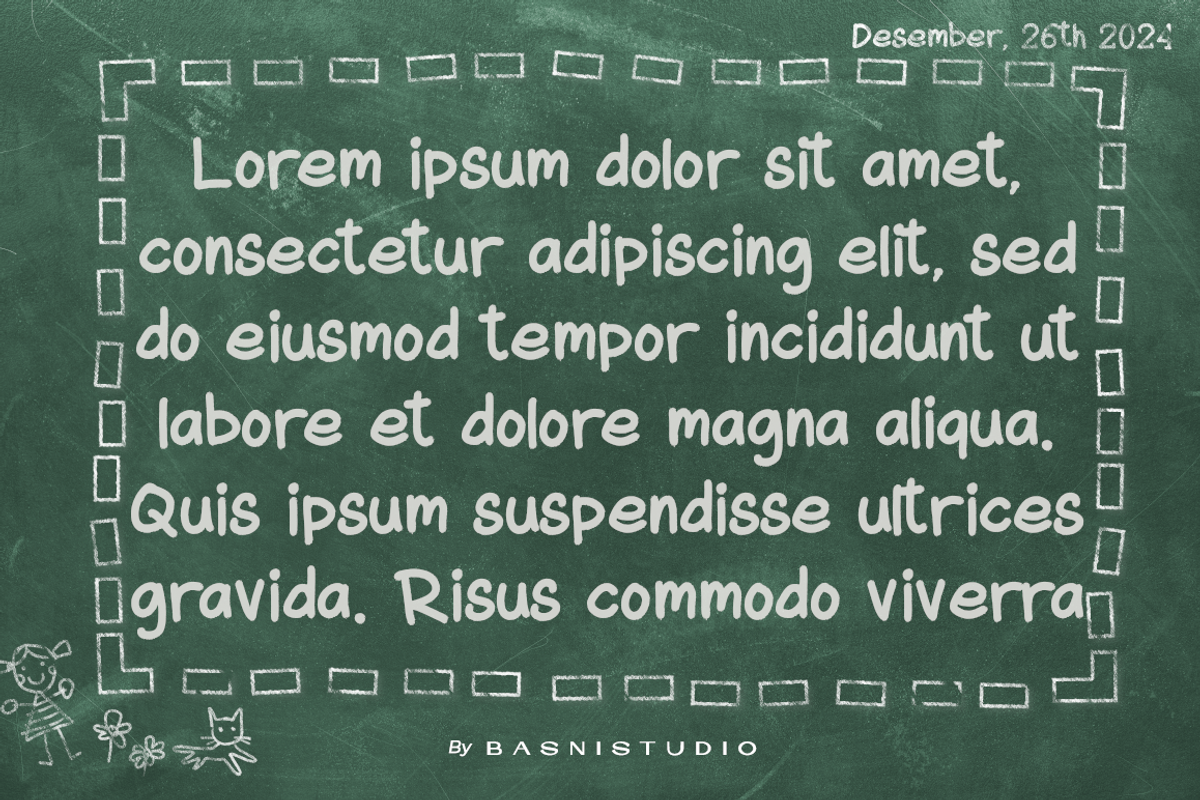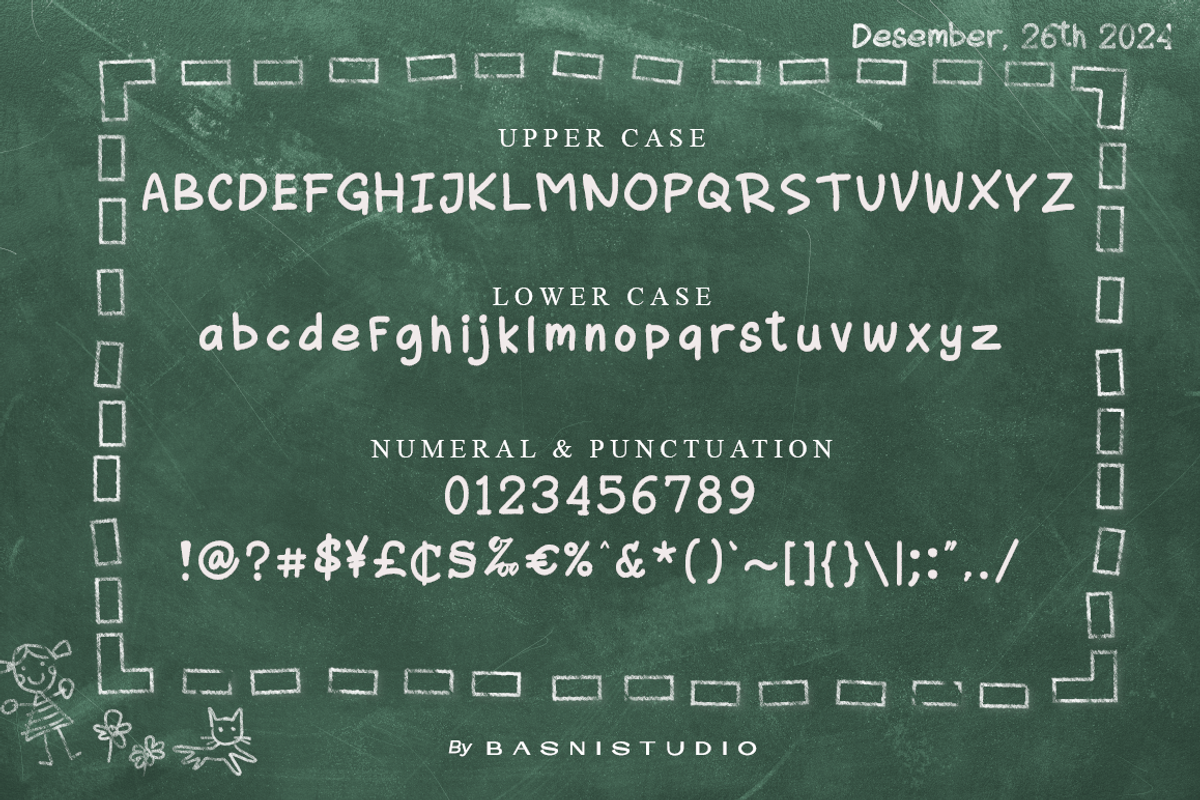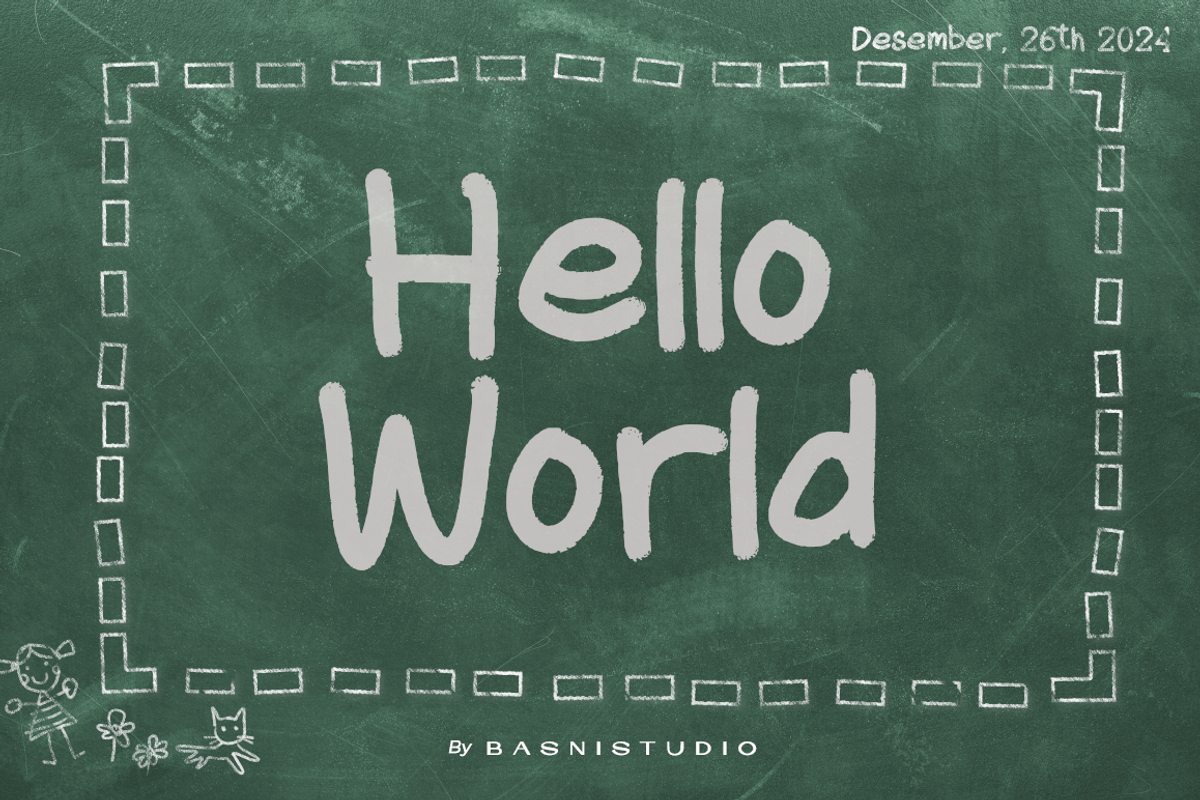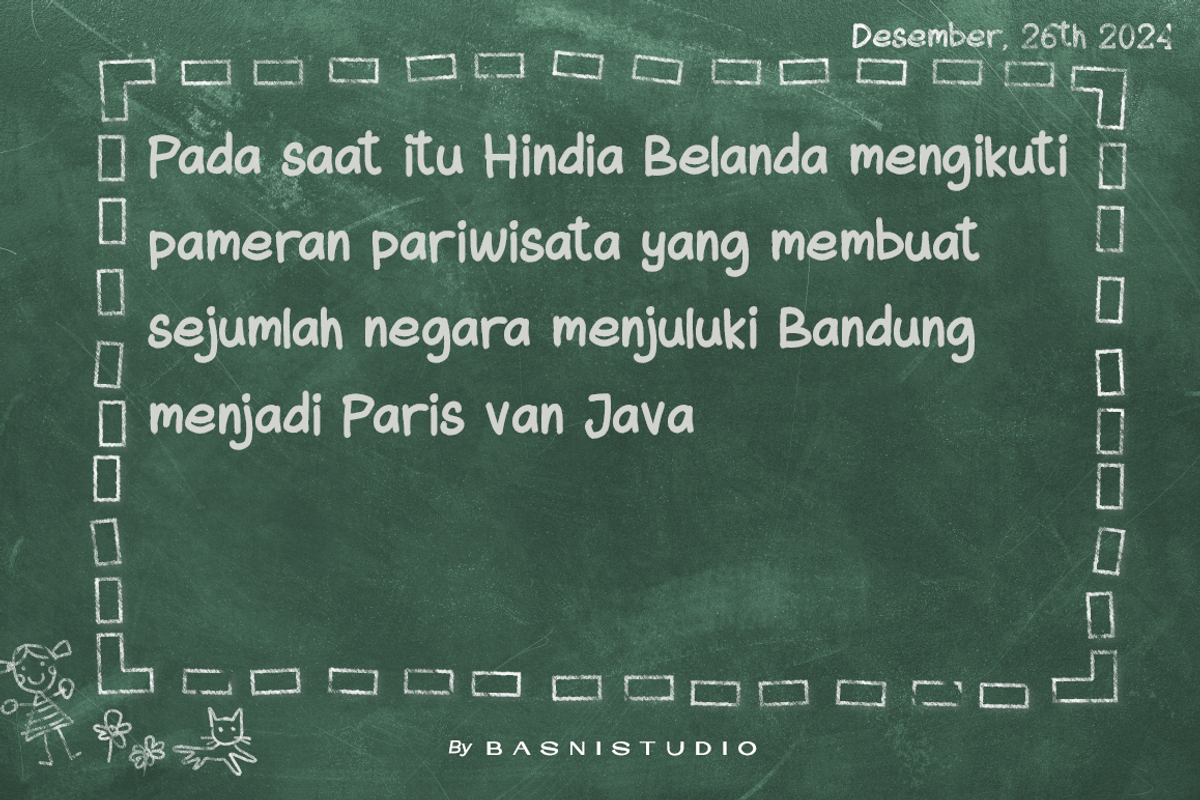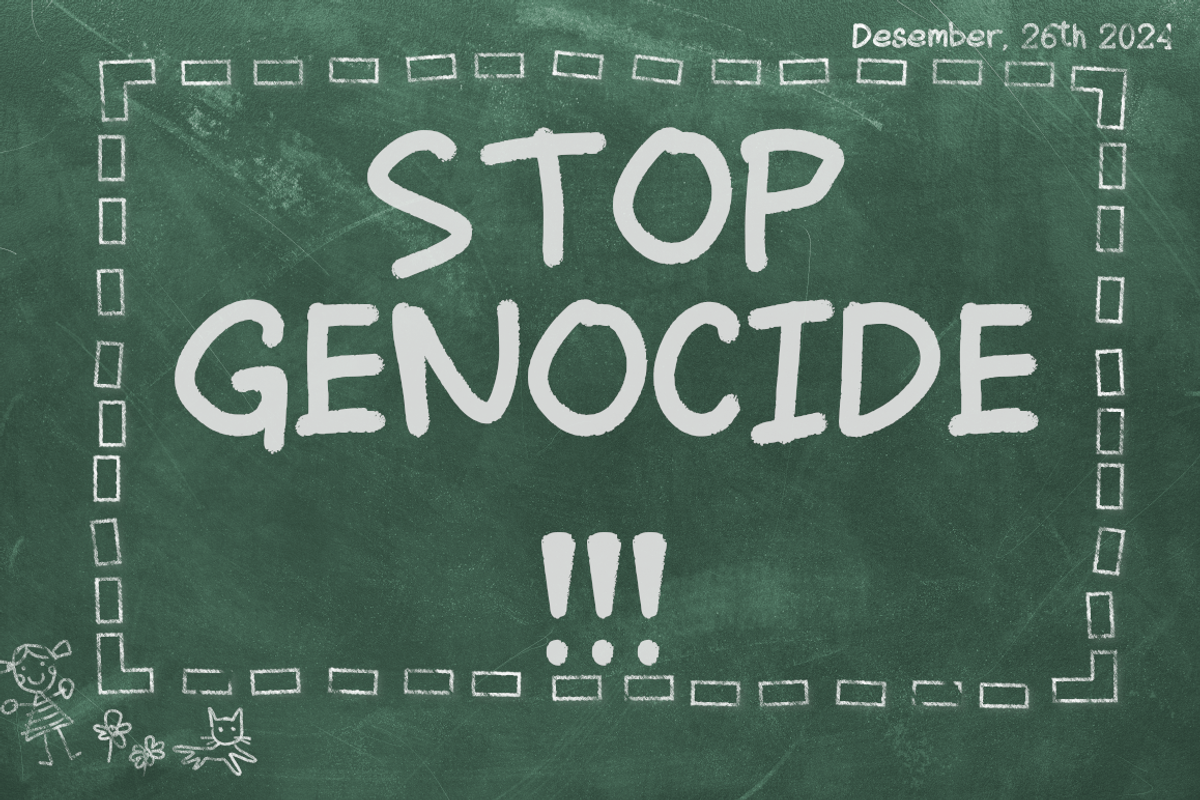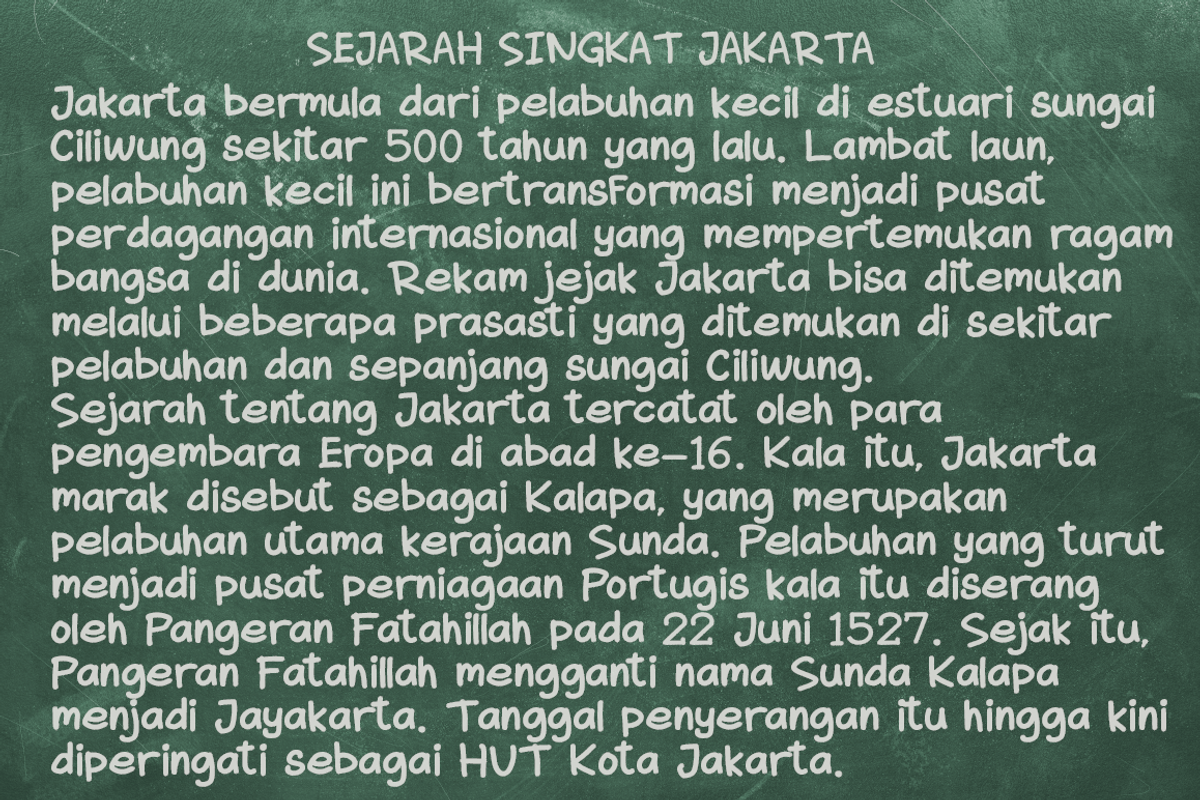
Hello World Chalk Font
Introducing Hello World Chalk Font
Hello World Chalk Font, made with Naturaly, perfect for branding, websites, and editorial designs. Includes all Characters letters, multilingual support, punctuation, binding. everything can be easily accessed using software that supports OpenType. What’s include: